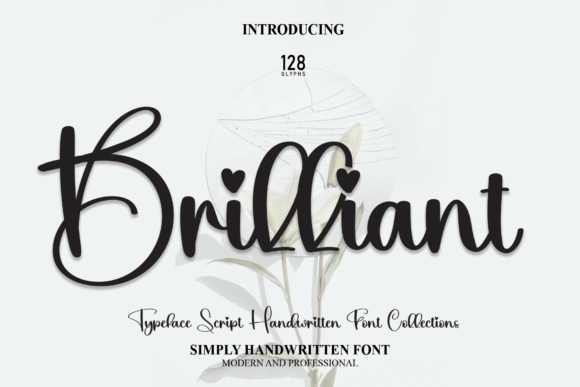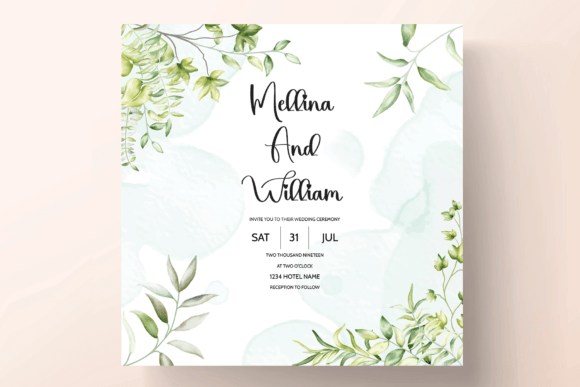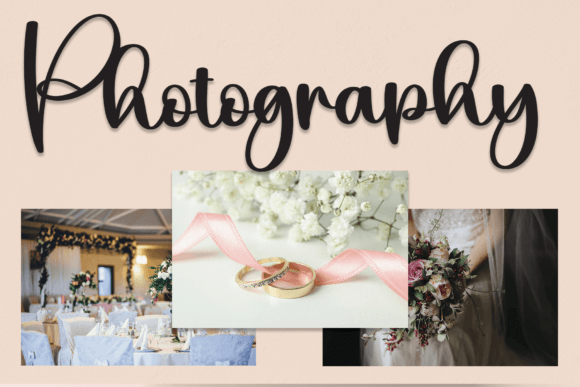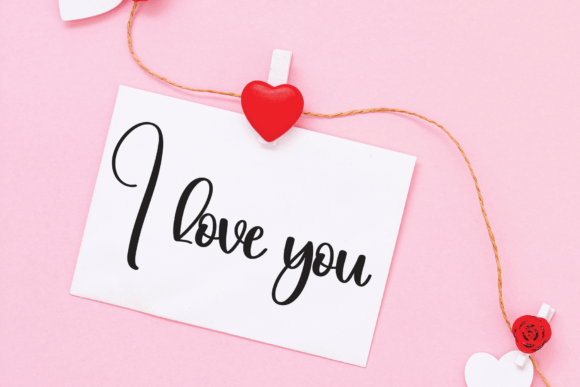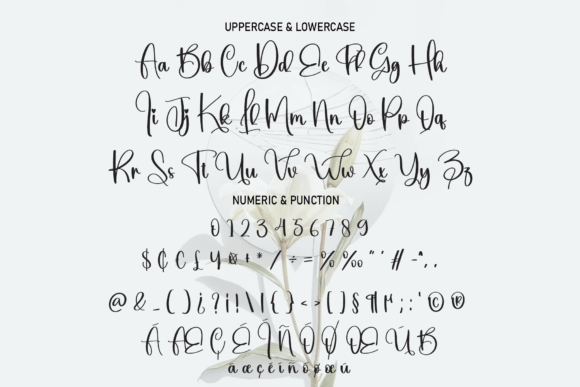
Brilliant Font
Brilliant is a wonderful, impactful handwritten script font that’s perfectly suited to wedding use. This sweet font comes complete with hearts to dot the i’s – perfect for a fun wedding celebration.